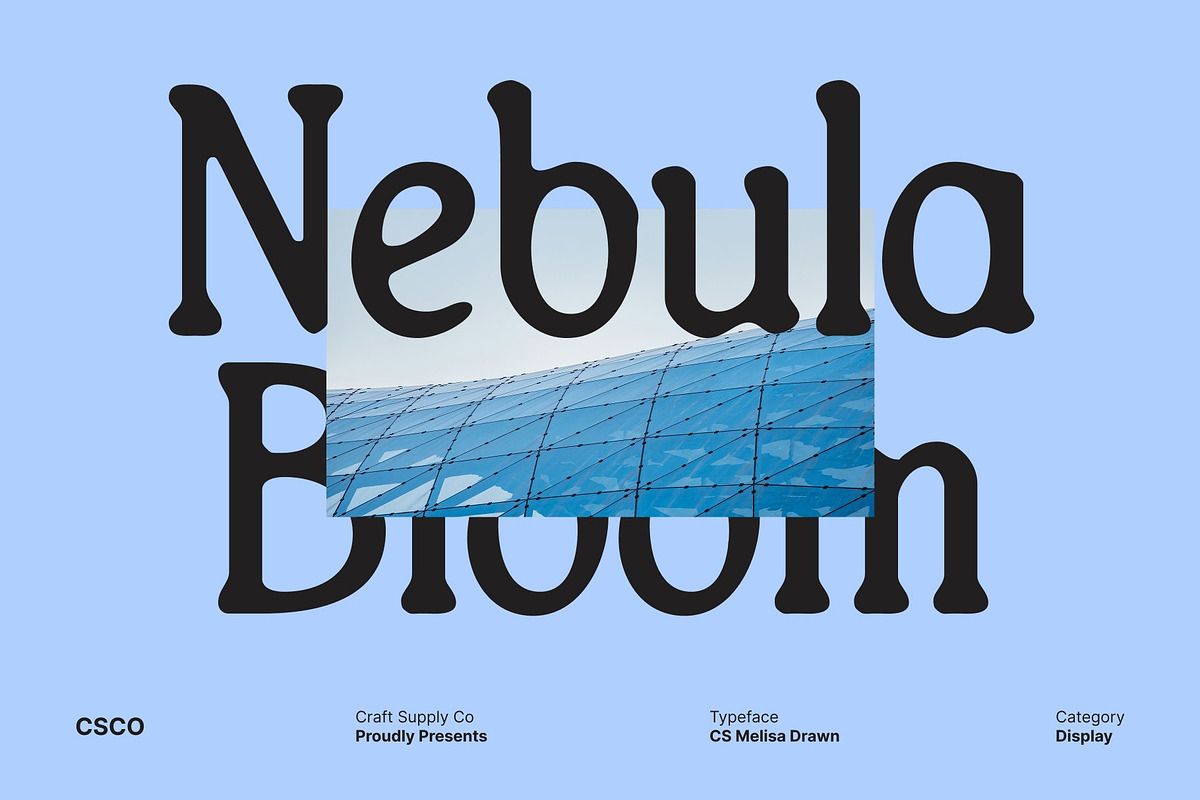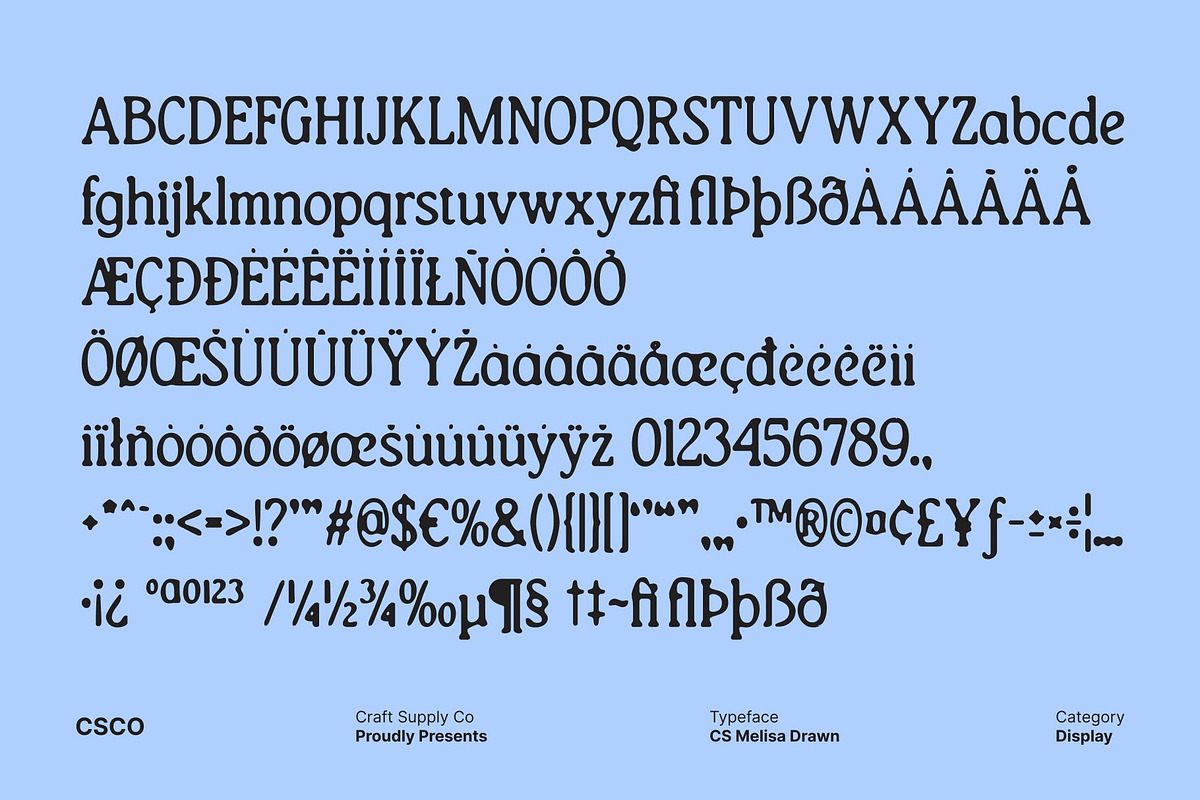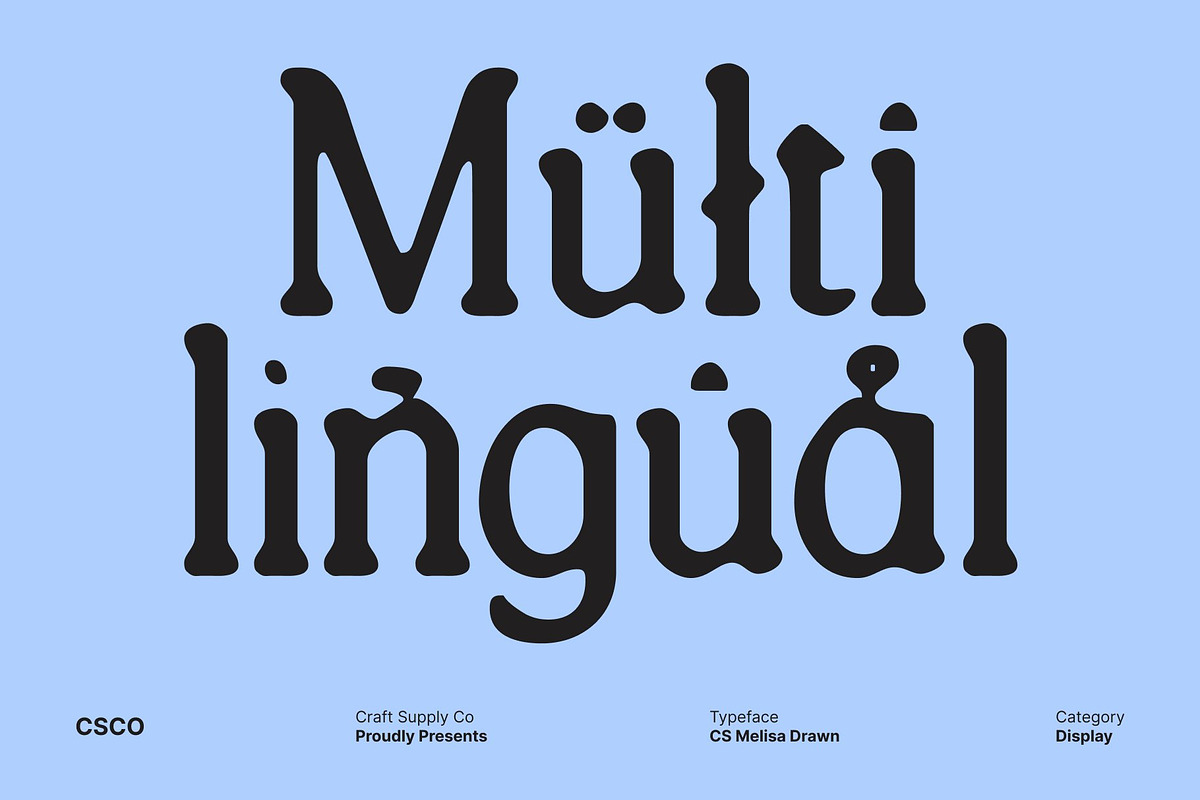
CS Melisa Drawn
CS Melisa Drawn – Modern Serif Font with Graceful Drawn Elegance
Graceful Long Serifs with Minimalist Structure This modern serif font features elegant long serifs paired with clean, minimal shapes that create a refined and contemporary appearance. Its balanced proportions and thoughtful spacing deliver a sophisticated typographic voice that feels calm, confident, and visually polished. The slender serifs add a sense of flow and continuity, while the minimalist structure keeps the design fresh, modern, and highly readable across layouts.
Drawn Texture for Handmade Depth and Artistic Warmth The drawn texture introduces subtle handmade depth, adding an artistic layer to the font’s refined construction. Organic strokes and gentle imperfections soften the clean forms, giving each character individuality and expressive charm. This handcrafted detail brings warmth and creativity, transforming the font into something elegant yet human, structured yet expressive.
Perfect for Editorials, Posters, and Branding Ideal for editorial layouts, magazine headlines, posters, book covers, and branding projects, this font excels where sophistication and creativity must coexist. Its graceful presence enhances storytelling and visual hierarchy, while the drawn texture ensures your designs feel unique and thoughtfully crafted.
Refined, Creative, and Visually Expressive By combining modern serif precision with artistic drawn texture, this font achieves a harmonious balance between refinement and creativity. It’s a perfect choice for designers seeking a typeface that communicates elegance, originality, and visual depth elevating both print and digital projects with timeless style and artistic confidence.